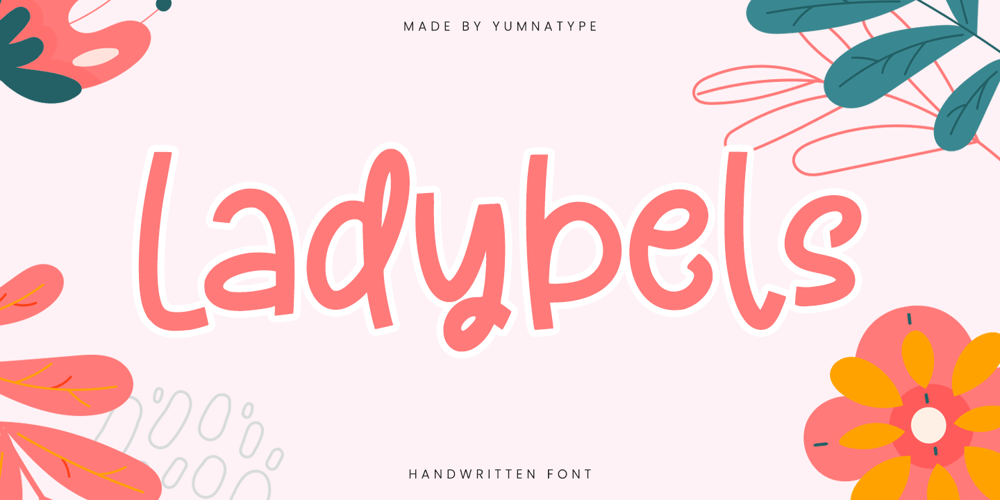
Ladybels
Ladybels font
Ladybels Font Family was designed by Donis Miftahudin and published by Yumna Type. Ladybels contains 1 styles and family package options. Ladybels is a delightful script font that brings a sense of playful elegance to your designs. The playful style of Ladybels is characterized by its smooth, rounded shapes, giving each letter a friendly and approachable feel. The rounded contours create a harmonious flow, making it ideal for projects that require a soft and inviting aesthetic.Its light weight ensures readability and versatility, making it suitable for both headlines and longer text passages. In addition, enjoy the features here.Features: Ligatures Multilingual Supports PUA Encoded Numerals and Punctuations Ladybels fits in headlines, logos, posters, flyers, branding materials, print media, editorial layouts, and many more designs. Find out more ways to use this font by taking a look at the font preview.Thanks for purchasing our fonts. Hopefully, you have a great time using our font. Feel free to contact us anytime for further information or when you have trouble with the font. Thanks a lot and happy designing.